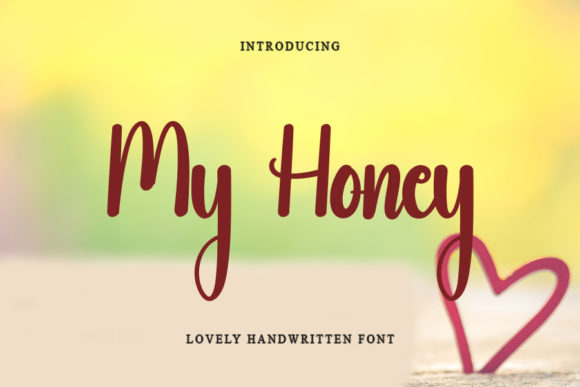
Introducing My Honey Font, the Exquisite Handwritten Font That Will Capture Hearts and Elevate Your Designs to New Heights!
Journey into the world of elegance and charm with My Honey Font, a beautifully crafted script font that exudes warmth, creativity, and sophistication. Each letter is meticulously handwritten, capturing the essence of heartfelt emotions and adding a personal touch to your digital creations.
Whether you're a seasoned designer or just starting, My Honey Font is your perfect companion for creating stunning logos, captivating invitations, heartfelt cards, and any project that calls for a touch of enchanting flair. Its versatility knows no bounds, allowing you to effortlessly elevate your branding, social media presence, and digital marketing campaigns.
With My Honey Font, you'll effortlessly craft designs that resonate with audiences, leaving a lasting impression that sets you apart from the crowd. Its delicate strokes and whimsical curves inspire a sense of nostalgia and charm, while its modern elegance ensures your designs remain timeless and unforgettable.
So, if you seek a font that evokes emotion, captivates attention, and transforms your designs into captivating works of art, then My Honey Font is your perfect choice. Dive into a world of creativity and let your imagination soar with this extraordinary font that will leave hearts fluttering and eyes sparkling.